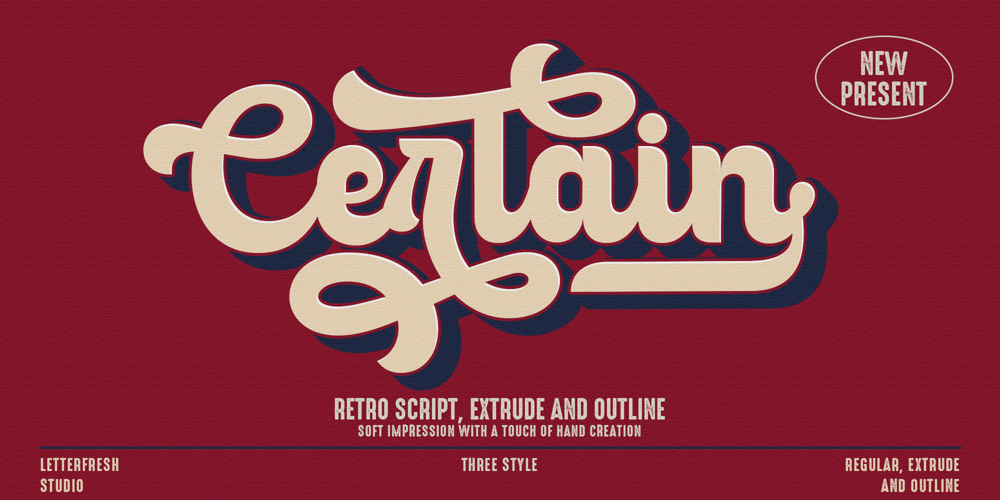
Certain Vintage Font Family was designed by Rizki Andika and published by Letterfreshstudio. Certain Vintage contains 3 styles and family package options. Introducing Certain A bold retro script that will take you back to the 60s. This typeface has an extrude version so you can create a retro effect font easily. This font is very suitable for application, especially on logos, and various other formal forms such as invitations, labels, logos, magazines, books, greeting/wedding cards, packaging, fashion, make up, stationery, novels, labels or all kinds of things. advertising purposes.Feature :uppercase & lowercase numbers and punctuation multilingual binder alternative thud coded PUAWe strongly recommend using programs that support OpenType features and the Glyphs panel such as most Adobe and Corel Draw applications.There he is! I really hope you enjoy it – please let me know what you think. More importantly, feel free to message me if you have any problems or questions.